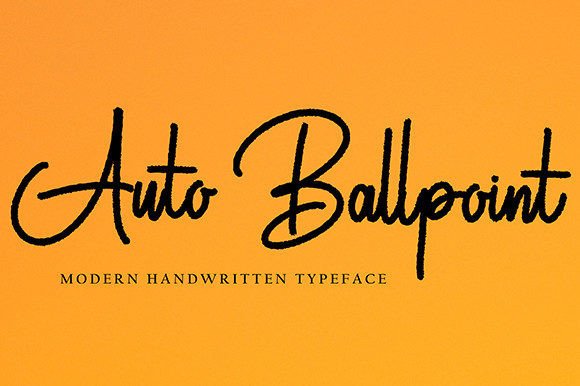
The Quest for the Perfect Handwritten Font: Discovering Auto Ballpoint
I’ll never forget the design project that led me to Auto Ballpoint. I was working on a branding campaign for a trendy new coffee shop, and I needed a font that felt modern, yet approachable. I spent hours scouring font websites, but nothing seemed quite right. That was until I stumbled upon Auto Ballpoint, a beautiful modern handwritten typeface that stole my heart.
First Impressions: A Love at First Sight
As soon as I opened Auto Ballpoint on my computer, I knew I had found something special. The letters seemed to dance across the page, with a perfect balance of elegance and playfulness. I was hooked! ✨
- 💕 Unique Character: Auto Ballpoint has a distinct personality that’s hard to find in other fonts.
- ✅ Versatility: It’s perfect for quotes, logos, blog headers, posters, branding, letters, invitations, stationery, and more.
- 🎉 Modern Feel: This font screams modern and trendy, making it perfect for contemporary designs.
While Auto Ballpoint is an amazing font, it’s not perfect. Here are a few things to keep in mind: ⚠️
- 🤔 Limited Use in Small Sizes: Auto Ballpoint can get a bit lost in very small font sizes, so it’s best used in headlines or titles.
- ⚠️ Some Letter Combinations: A few letter combinations can feel a bit awkward, but these are easy to adjust with a little creativity.
One of the best things about Auto Ballpoint is its OpenType features. With a range of stylistic alternates and glyphs, you can customize your text to fit your brand’s personality. For example, you can use:
- Stylistic Alternates: Swap out letters for alternate versions.
- Glyphs: Add decorative elements like flourishes and swashes.
The Designer Inspiration Behind Auto Ballpoint
While the true story behind Auto Ballpoint’s creation is unknown, it’s easy to imagine a designer sitting down with a pen and paper, determined to create a font that felt modern and fresh. Perhaps they drew inspiration from everyday conversations, capturing the essence of handwritten notes and turning them into a digital font.
Q: What makes Auto Ballpoint so special?
A: Auto Ballpoint’s unique character and versatility make it a standout font. Its modern feel and range of OpenType features make it perfect for a wide range of design projects.